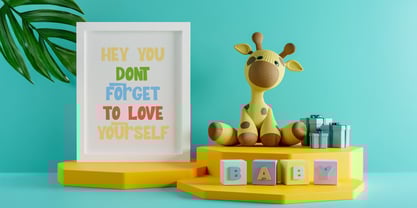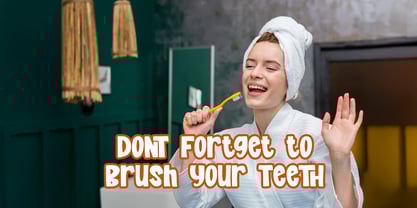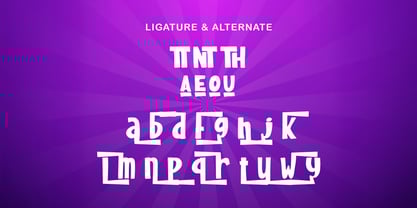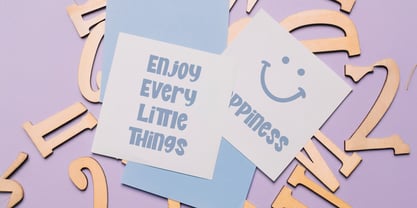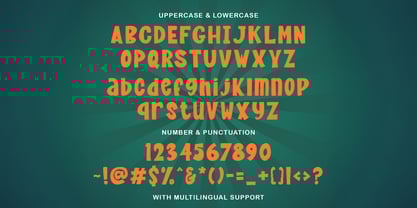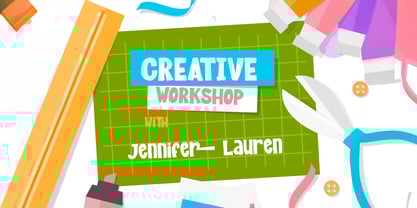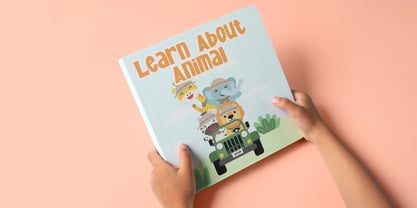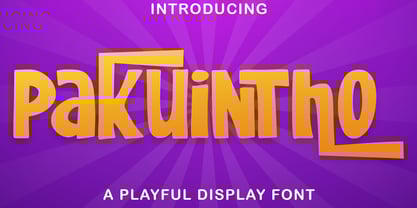
The Pakuintho Font Family was designed by Virgiawan Listanto and published by Stringlabs Creative Studio. Pakuintho contains 1 styles. More about this family
Pakuintho is a cheerful playful display font designed to bring fun and creativity to your projects. With its quirky shapes, bold strokes, and lively personality, it’s perfect for children’s books, posters, games, packaging, logos, and social media designs. The energetic letterforms of Pakuintho make every project feel vibrant, friendly, and engaging. Add a touch of joy and playfulness to your typography with this fun and eye-catching font.